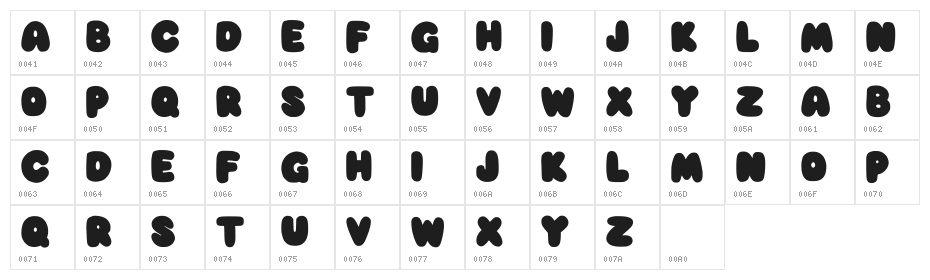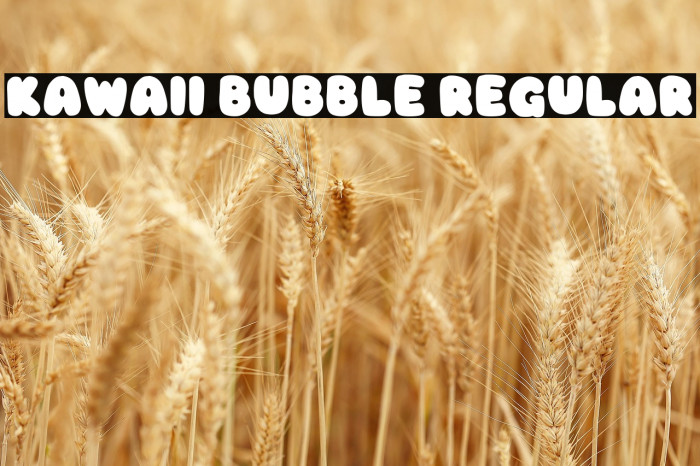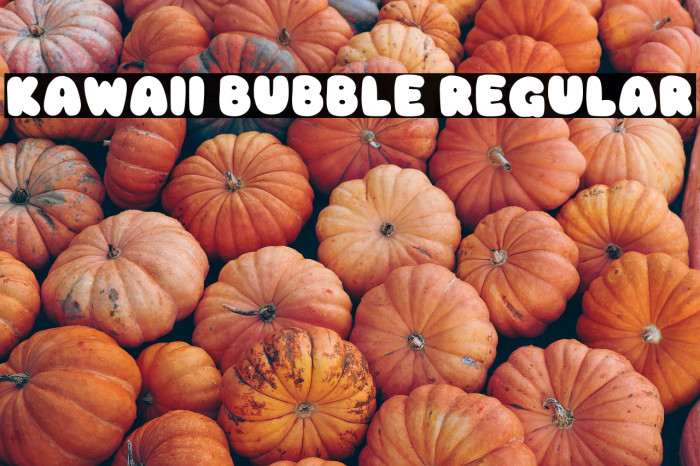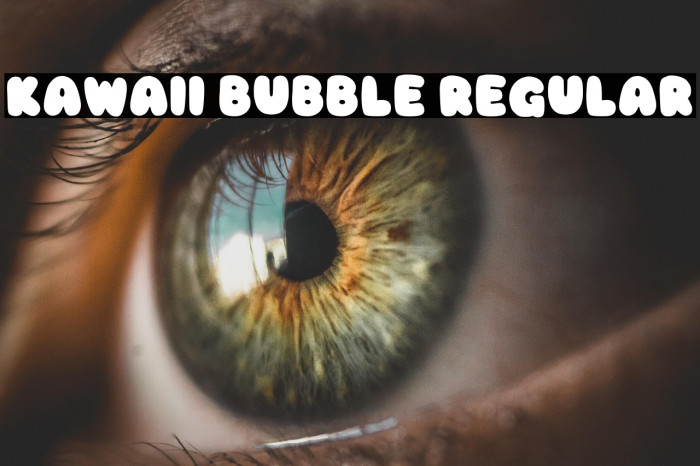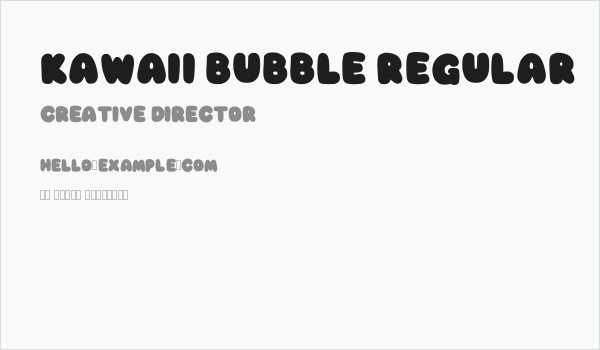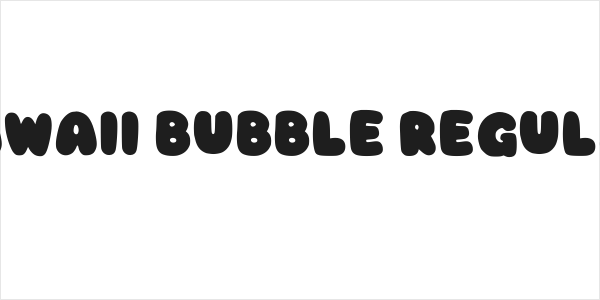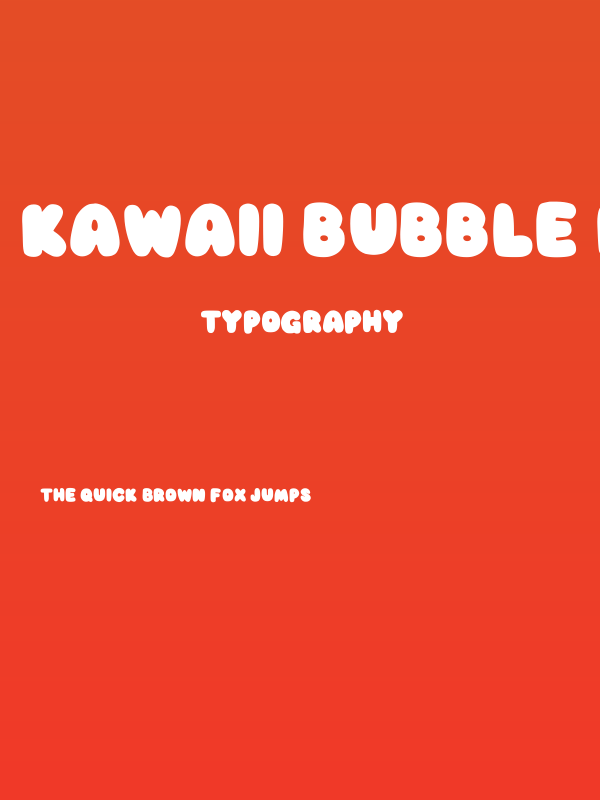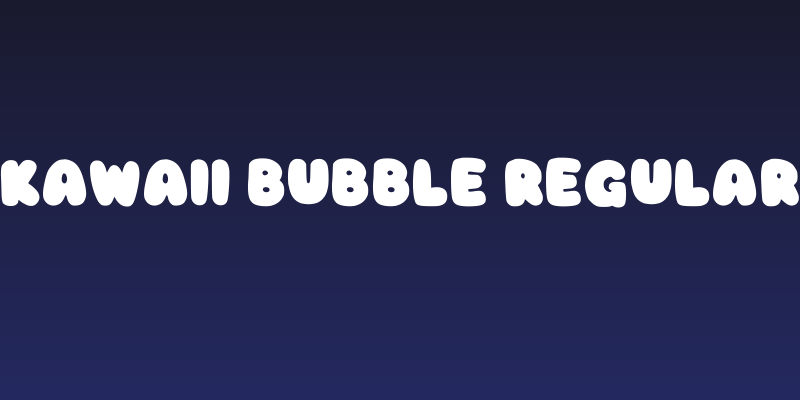
Kawaii Bubble Regular Font
Kawaii Bubble Regular Description
This playful and bubbly font features rounded, thick letters that convey a sense of fun and whimsy. The characters are bold and have a uniform thickness, creating a cohesive and eye-catching appearance. The overall design is reminiscent of cartoon or comic styles, making it ideal for projects that aim to capture a youthful or lighthearted tone. The letters are evenly spaced, ensuring readability while maintaining the playful aesthetic. This font is perfect for use in children's books, playful branding, or any design that requires a touch of joy and creativity.
| Proposed Projects | Children's books, playful branding, comic strips, party invitations, and creative posters. |